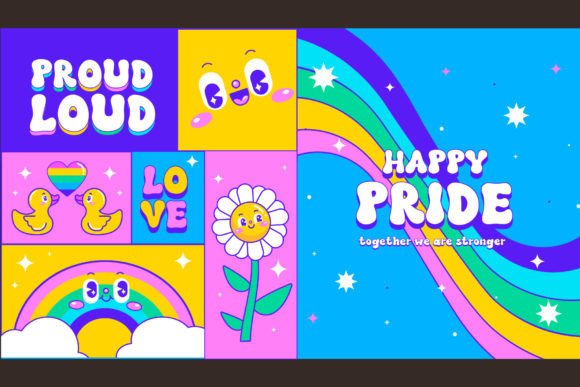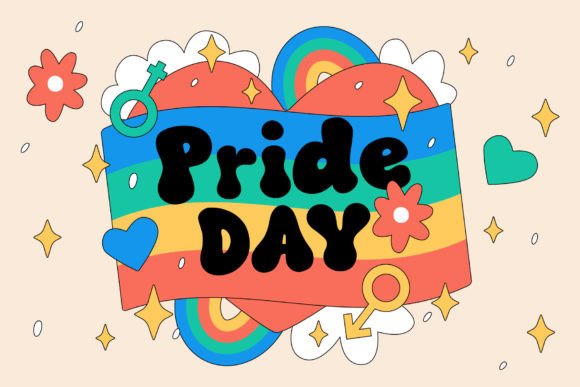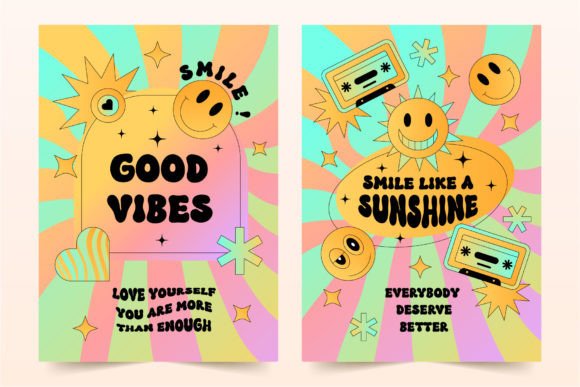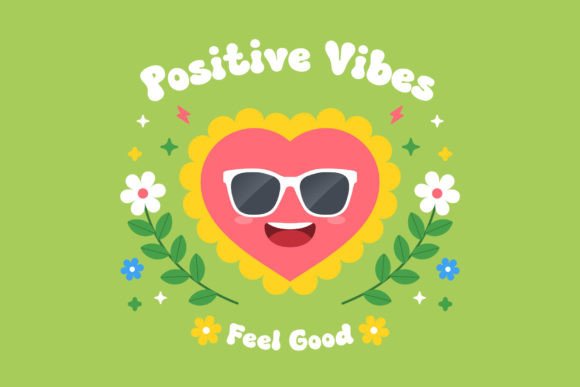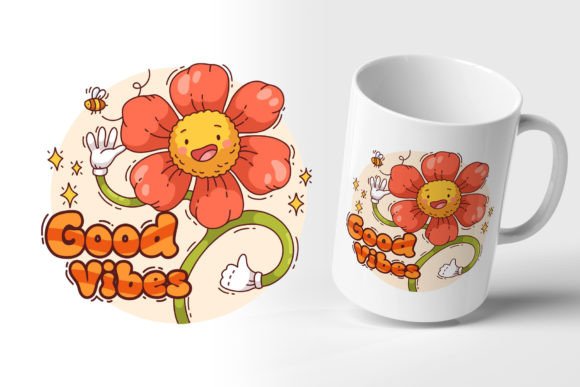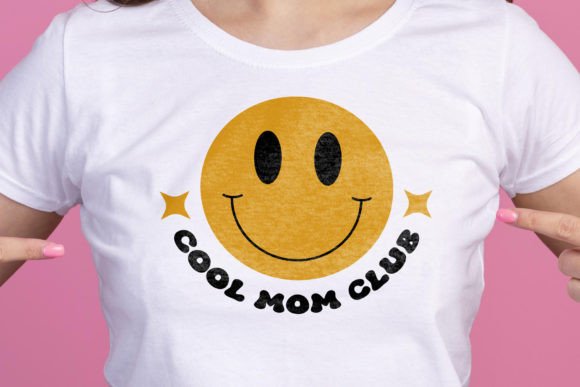
Introducing Good Luck Font: The Groovy and Playful Display Font of the 60s
Are you looking for a font that can add a touch of personality to your design projects? Do you want to create something that stands out from the crowd and captures the essence of the 1960s? Look no further than Good Luck Font, a groovy and playful display font that’s perfect for designers and crafters alike.
The Retro Style of the 60s
Good Luck Font is inspired by the fun and funky designs of the 1960s. This was a time of great creativity and experimentation in the world of art and design, and the font captures the essence of this era perfectly. With its bold lines, curvaceous shapes, and playful flair, Good Luck Font is the perfect choice for anyone looking to add a touch of retro style to their designs.
Good Luck Font is a versatile font that’s perfect for a wide range of design projects. Whether you’re creating T-shirts, stickers, children’s book covers, social media posts, or anything in between, this font is sure to make your designs stand out. Its playful and fun nature makes it ideal for designs that need to appeal to a younger audience, but it’s also sophisticated enough to be used in more adult-oriented designs.
Key Features of Good Luck Font
- Groovy and playful design: Good Luck Font has a unique and eye-catching design that’s sure to grab attention.
- Retro style of the 60s: This font captures the essence of the 1960s, with bold lines, curvaceous shapes, and a playful flair.
- Perfect for display text: Good Luck Font is designed specifically for display text, making it perfect for headlines, titles, and other prominent text elements.
- Easy to read: Despite its playful nature, Good Luck Font is easy to read, even at smaller sizes.
- Versatile: This font can be used for a wide range of design projects, from T-shirts to social media posts.
Why Choose Good Luck Font?
There are many fonts to choose from, but Good Luck Font stands out from the crowd. Here are just a few reasons why:
- Unique design: Good Luck Font has a unique and eye-catching design that’s sure to grab attention.
- High-quality: This font is designed to high standards, ensuring that it looks great in any design.
Design Ideas Using Good Luck Font
Good Luck Font is a versatile font that can be used for a wide range of design projects. Here are a few ideas to get you started:
- T-shirts: Create fun and playful T-shirts using Good Luck Font.
- Stickers: Design stickers that stand out from the crowd using this font.
- Children’s book covers: Create eye-catching children’s book covers that appeal to kids and parents alike.
- Social media posts: Use Good Luck Font to create fun and engaging social media posts.
Good Luck Font is a groovy and playful display font that’s perfect for designers and crafters alike. With its retro style of the 60s, versatile design, and easy-to-use nature, this font is sure to make your designs stand out. Whether you’re creating T-shirts, stickers, children’s book covers, or social media posts, Good Luck Font is the perfect choice. So why wait? Download Good Luck Font today and start creating designs that are truly out of this world!